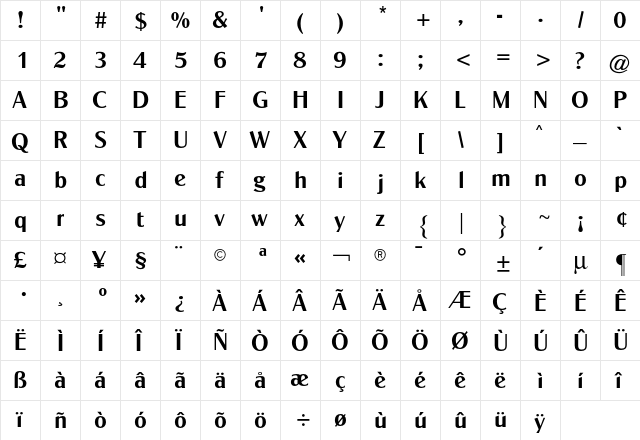
Globe Gothic CG Bold Regular
Design Context for Globe Gothic CG Bold Typeface
Globe Gothic CG Bold has the quiet confidence of well-executed sans-serif typography: versatile, unobtrusive, and dependable at any size. Its bold stroke weight gives it real presence on the page.
A strong choice for UI design, app interfaces, bold signage, and corporate brand systems.
Font Pairing: Use Globe Gothic CG Bold for headlines alongside a lighter-weight sans or serif for body copy to establish clear visual hierarchy.
Pro Tip: Pair Globe Gothic CG Bold with a display or serif font for headlines — its neutral character makes it an excellent supporting player in complex typographic systems.